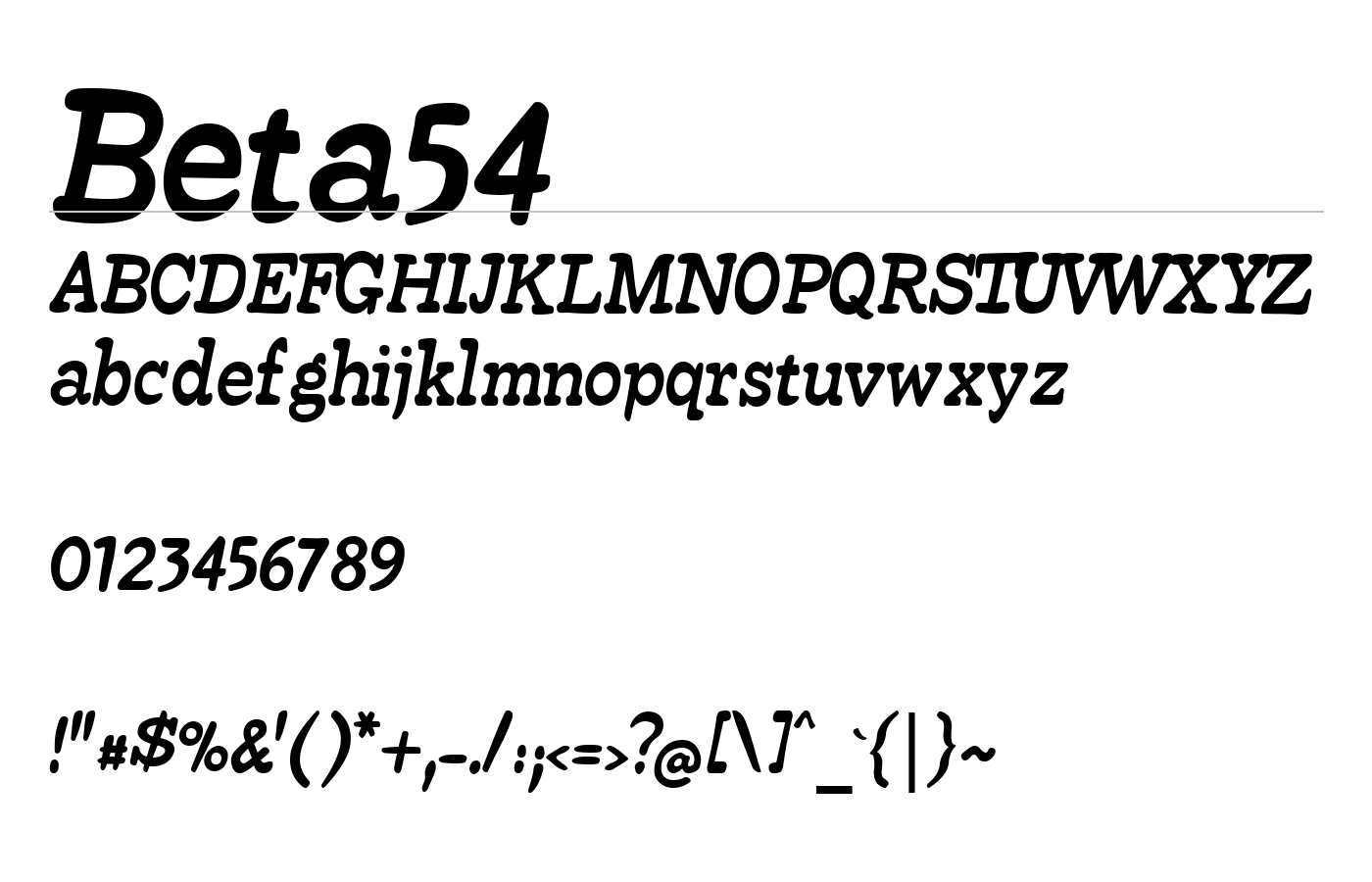
Beta54 is a playful and bold slab serif font with a slightly condensed width and a warm, hand-crafted feel. Its rounded terminals, moderate stroke contrast, and italicized slant give it a lively, informal personality, making it perfect for casual branding, headlines, and creative projects that need a friendly yet distinctive look. This font works well where personality and readability combine to engage audiences in packaging, posters, and editorial design.
Beta54 Font
About Beta54 Font
| Font family | Beta54 Font |
| Designer | Peter Wiegel |